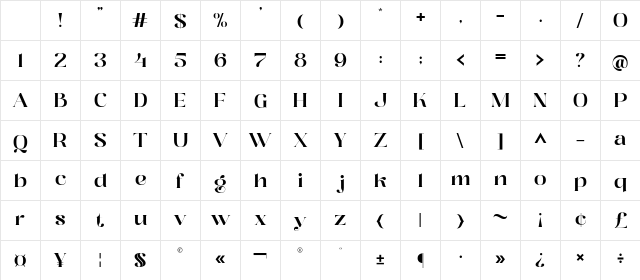
Distrela Demo is a composed and adaptable typeface that performs quietly and consistently across a wide range of design contexts.
Pro Tip: Use Distrela Demo in both headline and body roles to test its range before committing to a single application.